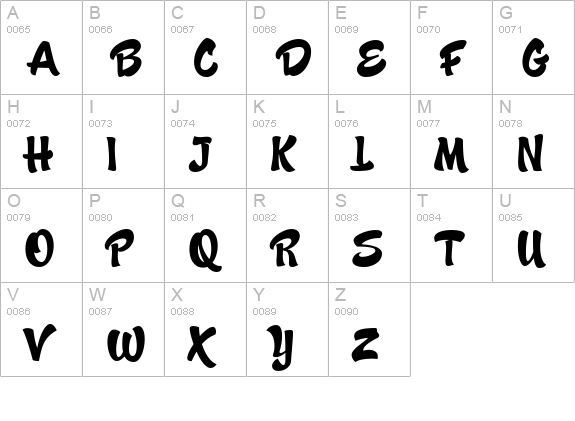
Candy Script is a whimsical and playful font that exudes charm and sweetness. With its flowing lines and rounded edges, this typeface is perfect for adding a touch of fun to any project. Whether you're designing invitations, posters, or branding materials, Candy Script is sure to capture attention and delight viewers. The best part? Candy Script is available for free download at FontsMarket.com, making it easily accessible for all your creative needs. Embrace the joy and creativity of this delightful font and bring a sense of whimsy to your designs today.